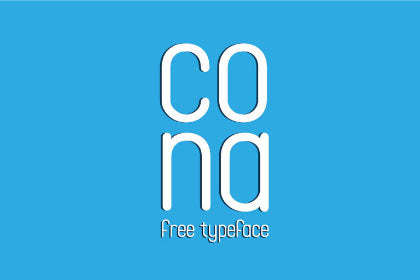
Take a look at this impressive free cona display typeface. Go give some love to Free Design Resources for creating this top-notch typeface. Amaze your fellow designers and create stunning designs with this fancy font.